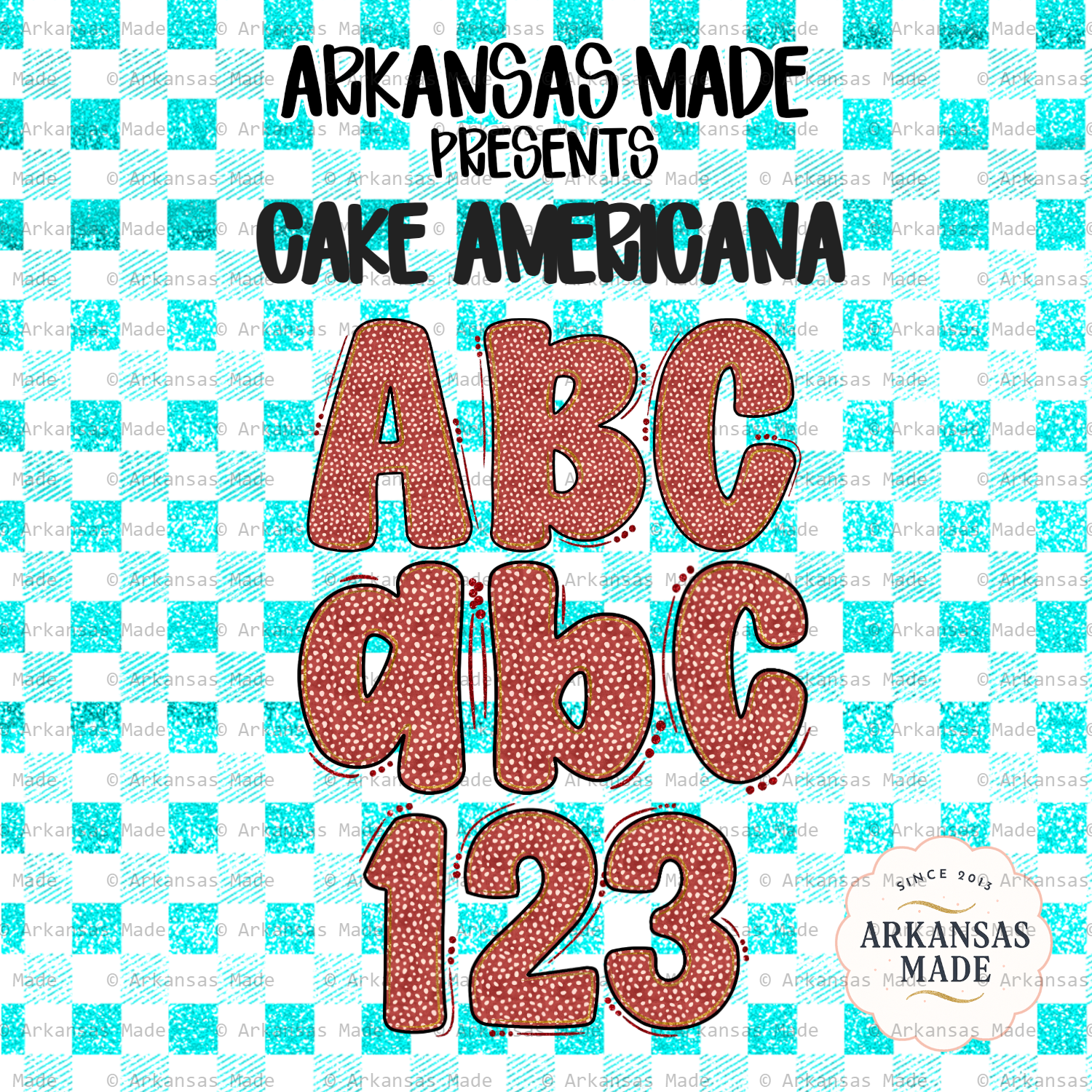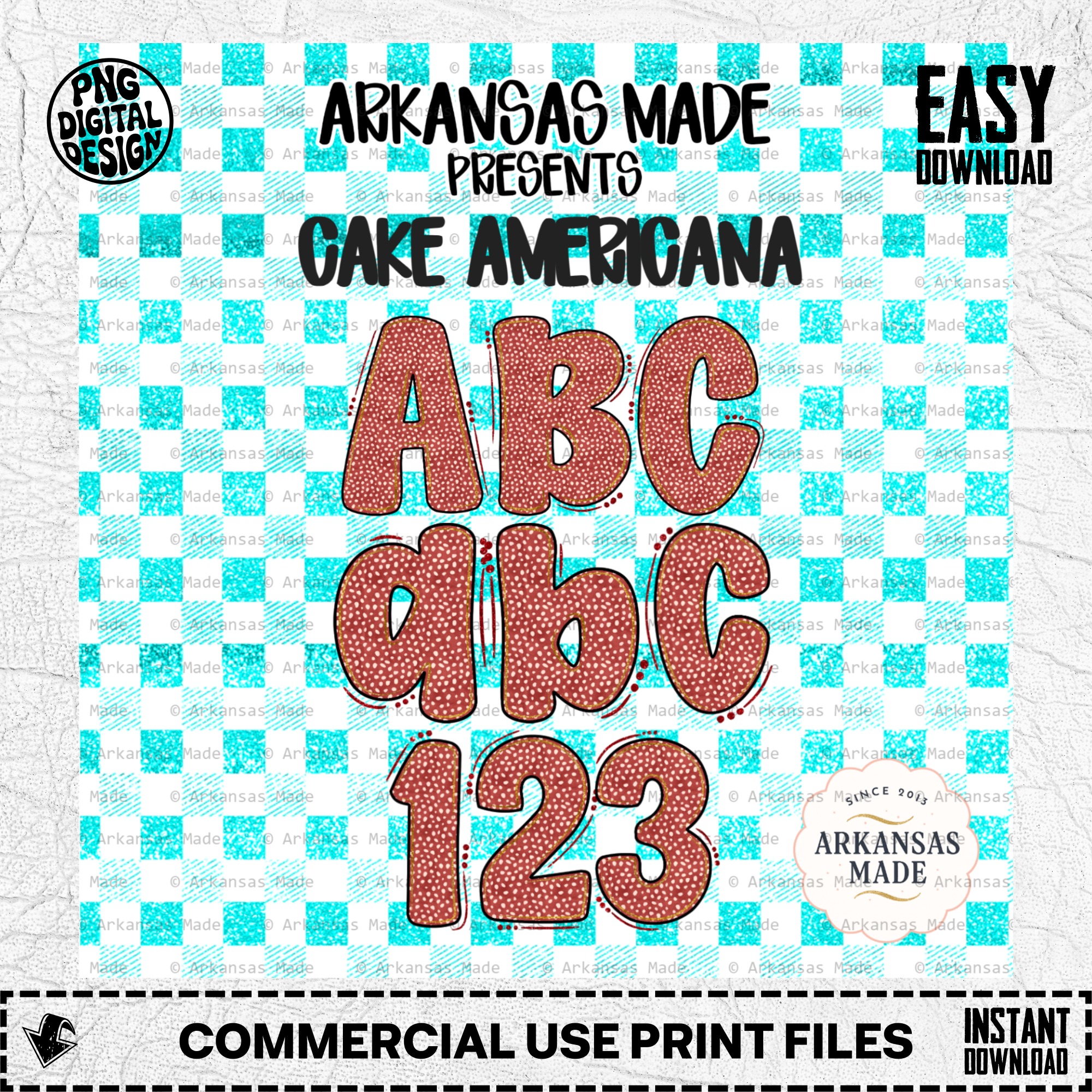
Cake Americana Alpha PNGs, Sprinkled Red Alphabet Letters & Numbers, Rustic Font Clipart for Sublimation, Patriotic Crafts, Digital Download
Get the “Cake Americana” Alpha PNGs, featuring charming speckled red letters and numbers for your patriotic crafts and sublimation designs. This unique digital download pack is perfect for crafters! Embrace a sweet, rustic aesthetic with this delightful alphabet clipart. Its faux sprinkle texture and warm tones evoke a cozy Americana vibe, ideal for creating personalized shirts, tumblers, party decor, or adding a festive touch to any DIY project. A thoughtful gift for any creative friend or small business owner.